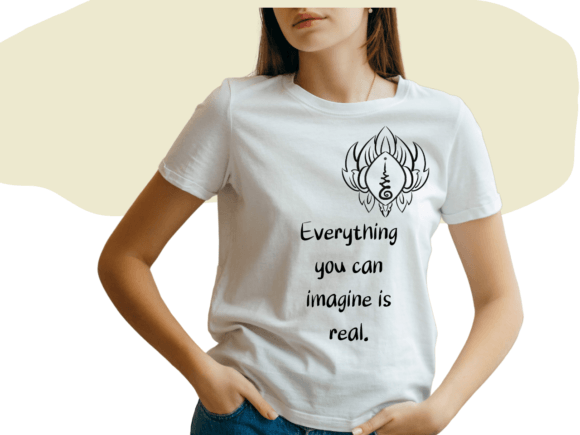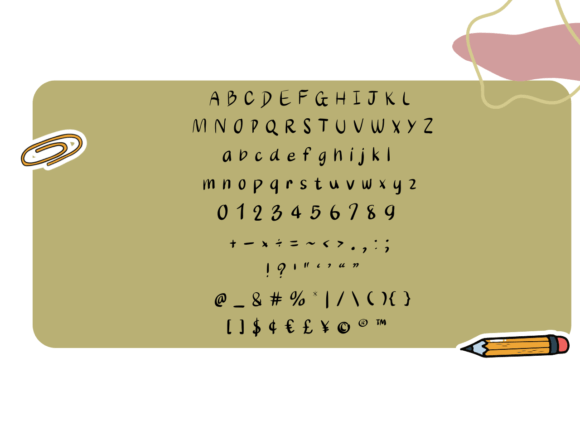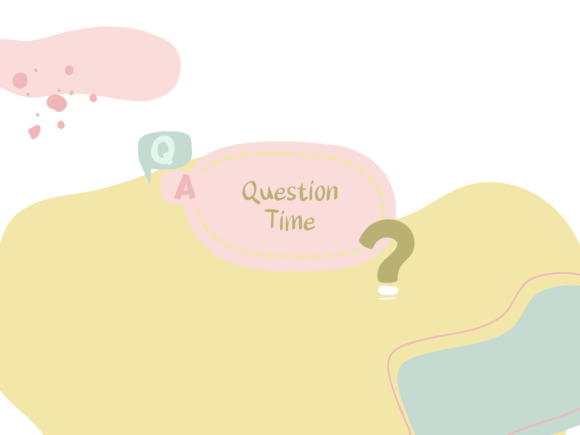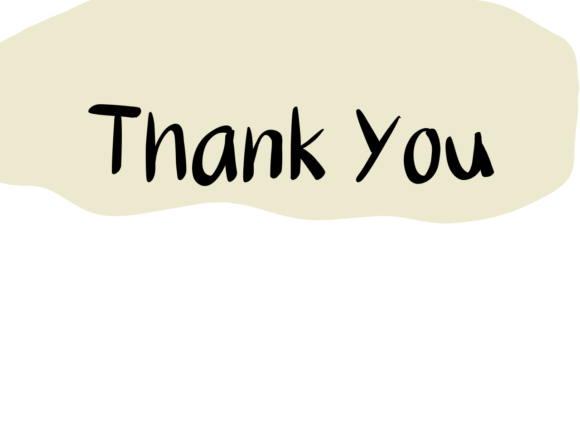
Introduction to Patric Font
Have you ever found yourself rummaging through your digital stash, desperate to find the perfect font for a creative project? I’ve been there too, scrolling through endless options, searching for that one special font that will elevate my design and make it truly special. It’s in those moments that I’m reminded of the joy of discovering a new font that becomes my go-to, my trusty sidekick for all my design needs. And that’s exactly what I want to introduce you to today – the Patric Font.
This charming, handwritten font is a design resource that’s sure to put a smile on your face. With its impeccable friendliness, Patric Font is the perfect addition to any project, whether you’re creating a greeting card, designing a presentation, or working on a craft project. And the best part? It’s available for free download, so you can get creative without breaking the bank.
Key Features of Patric Font
- High-quality font design with a unique and creative style, perfect for a variety of projects.
- Perfect for use in creative projects, such as graphic design, digital art, and typography-based art.
Honest Review: Patric Font
I recently came across the Patric Font, a free download that caught my attention as a potential design resource. Initially, I was drawn to its sleek and modern aesthetic, which I thought would be perfect for a creative project I was working on.
- High quality: The font is crisp and clear, even at larger sizes.
- Customizable: The font comes in a variety of weights and styles, allowing for a high degree of customization.
However, there are a few limitations to the Patric Font that I want to mention:
- ⚠️ Limited language support: The font may not support certain languages, which could be a problem for designers working on international projects.
- ⚠️ Not ideal for body text: While the font looks great for headings and titles, it may not be the best choice for body text due to its busy design.
Overall, I think the Patric Font is a solid choice for designers looking for a free, high-quality font. While it may have some limitations, I believe it’s a great resource to have in your toolkit.
Tips for Getting the Most Out of Patric Font
To get the most out of the Patric Font, use it in conjunction with other design resources and elements. Experiment with different font sizes, colors, and styles to create unique and eye-catching designs. The transparent background of the Patric Font makes it easy to combine with other design elements.
The Patric Font is perfect for a variety of creative projects, including graphic design, digital art, and typography. You can use it to create custom text overlays, headings, and titles for your designs. The high-quality design and transparent background of the Patric Font make it a valuable design resource for any creative project.